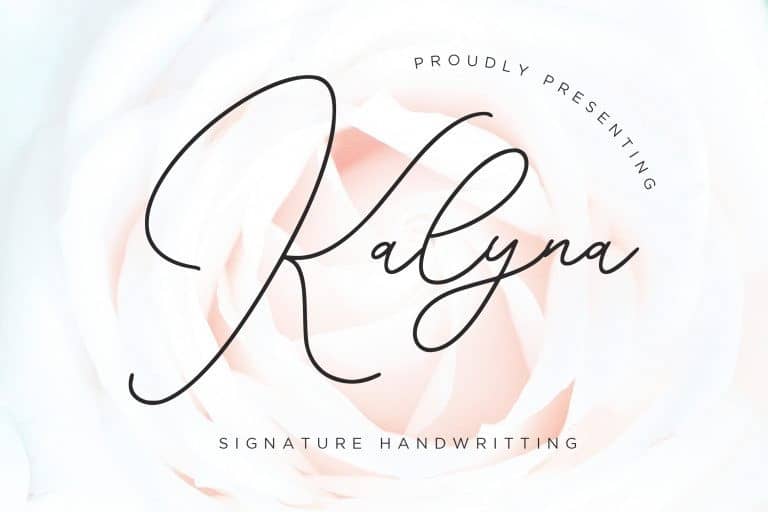
Kalyna Font
Kalyna Handwritten Font is an Beauty and Minimalist font created by Creatype Studio with beautiful ligature, character specials and multilingual support. This typeface is perfect for branding projects, logo, wedding designs, social media posts, advertisements, product packaging, product designs, label, photography, watermark, invitation, stationery and any projects that need handwriting taste.